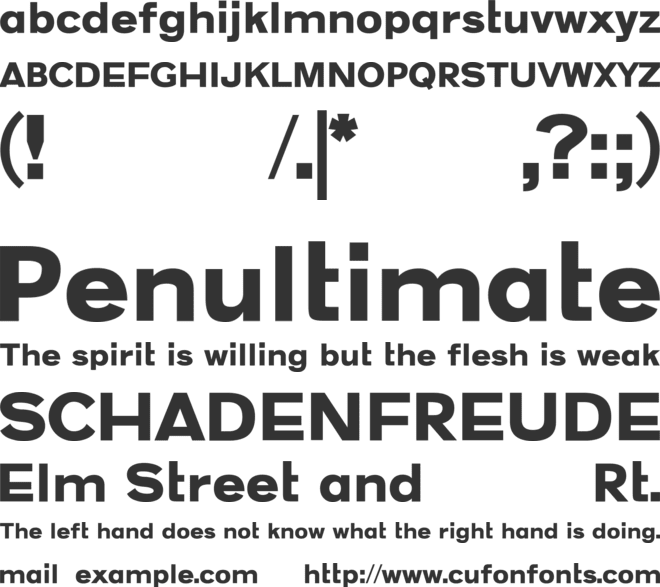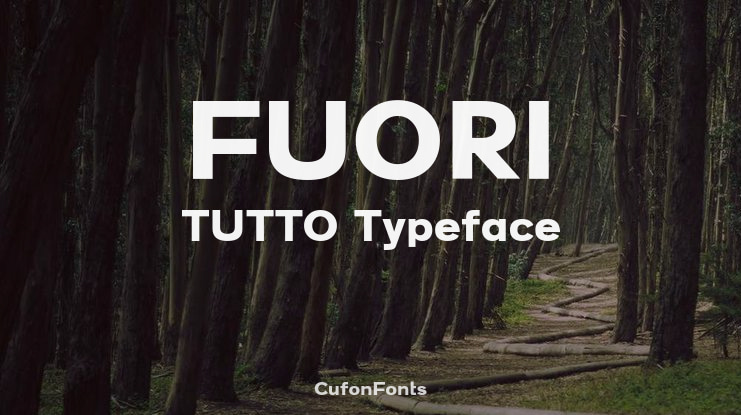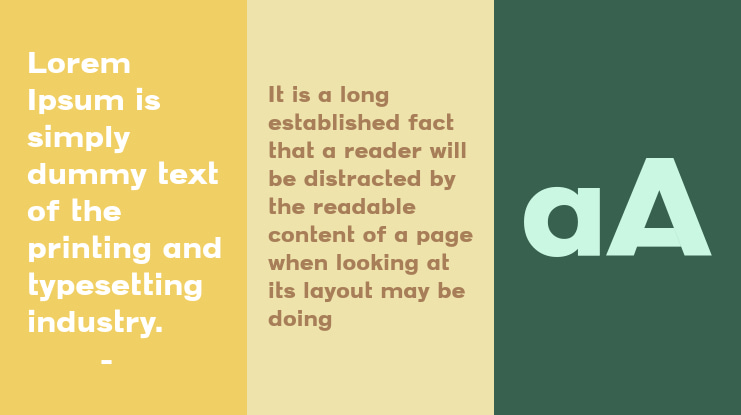
FUORI TUTTO Font
🎨 Font Name: FUORI TUTTO by Minimalist Art Studio
🎨 Font Description: Fuori Tutto is a bold sans serif typeface with multilingual support and italic styles—perfect for impactful branding, modern packaging, editorial layouts, and high-visibility digital design.
✔ Complete Latin set + multilingual diacritics
✔ Alternates, stylistic sets & ligatures
✔ Numbers, small caps, and extended punctuation
✔ Bonus italics and family styles